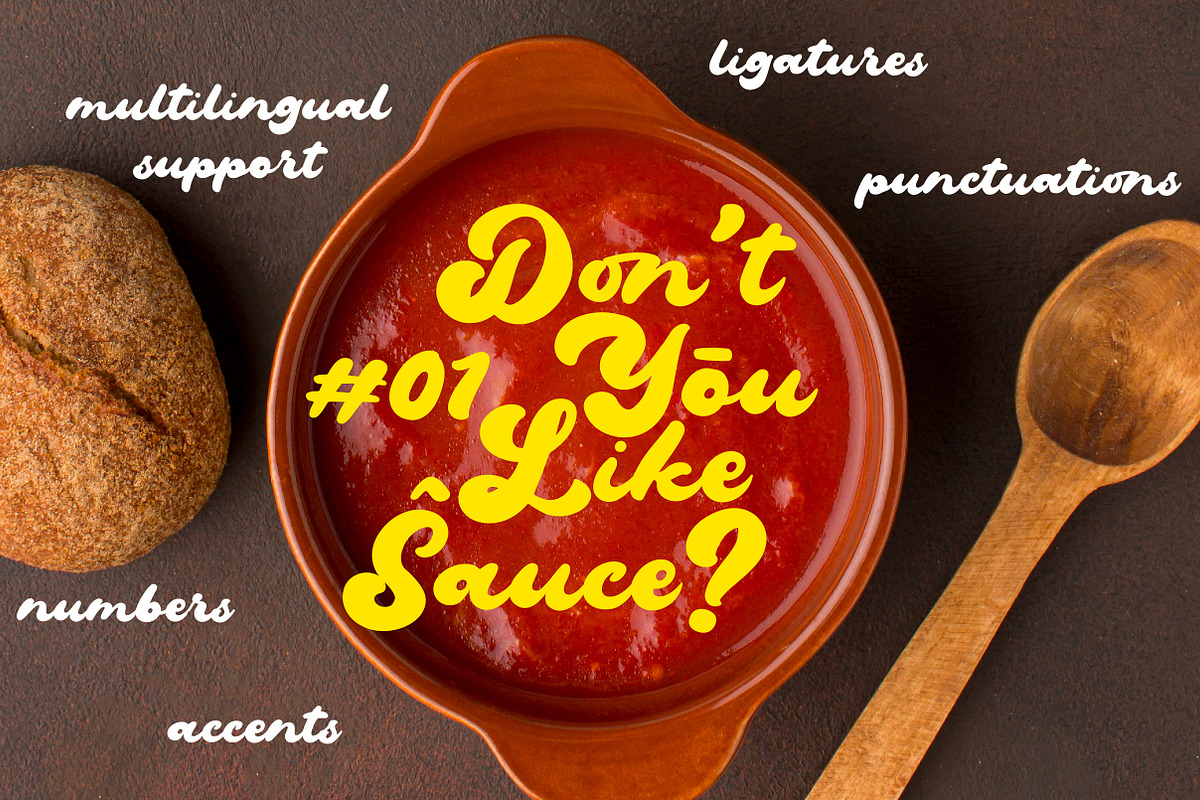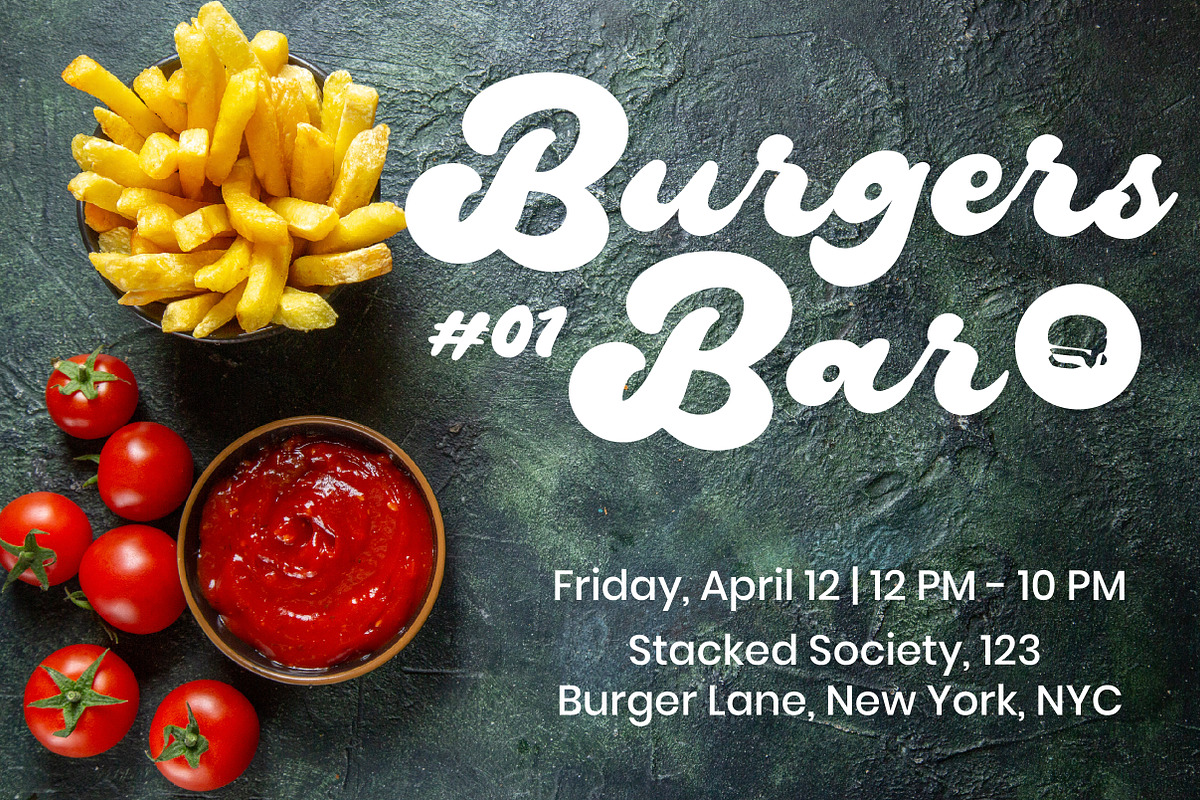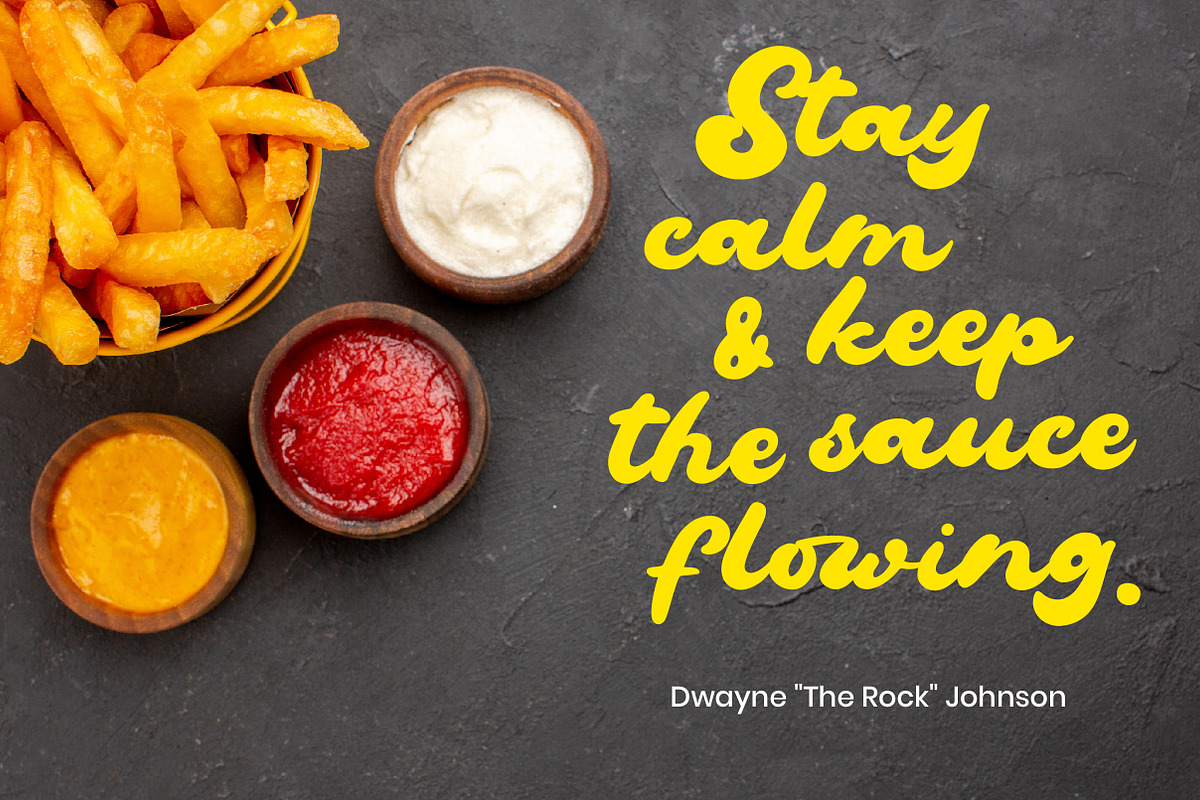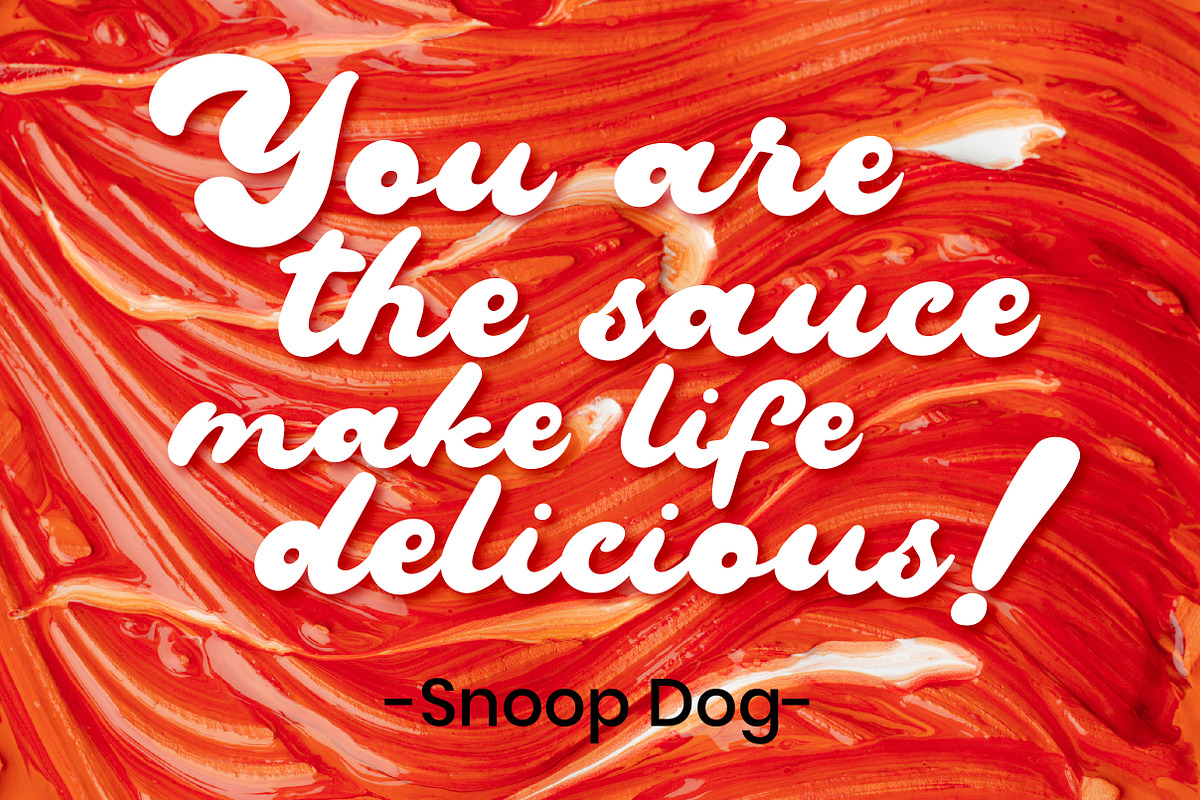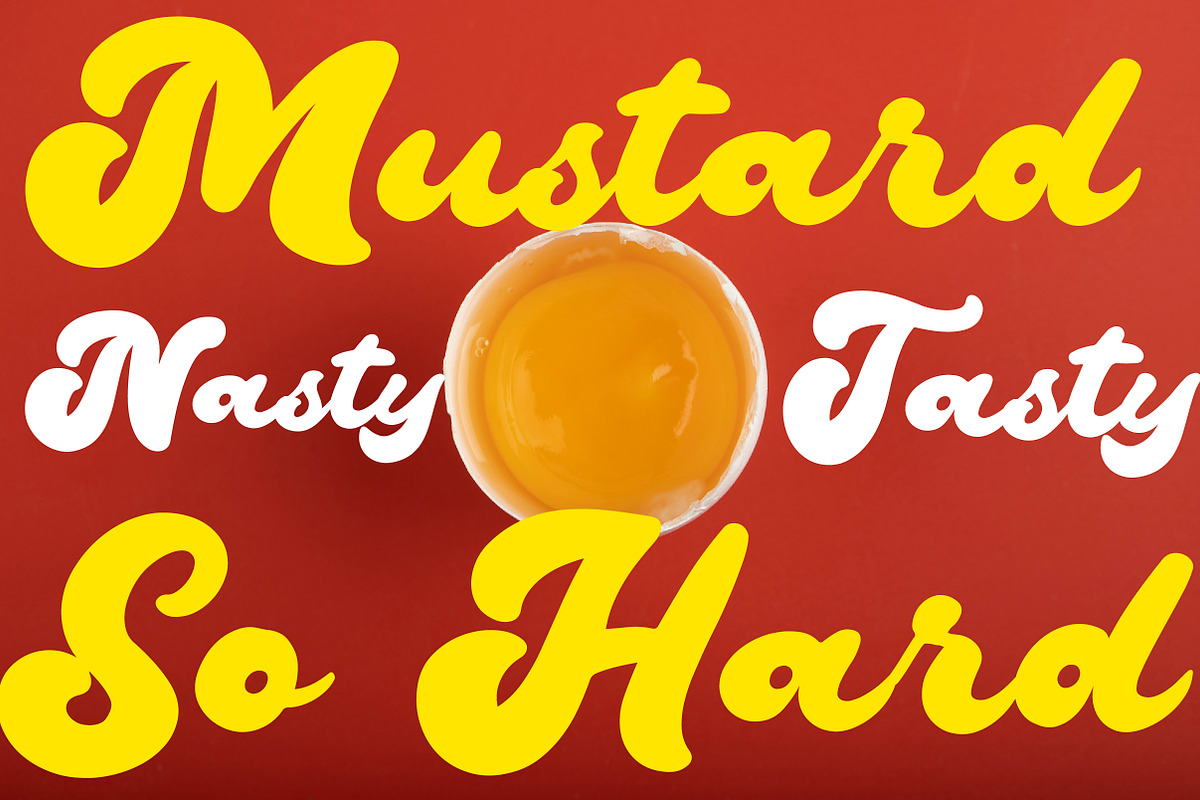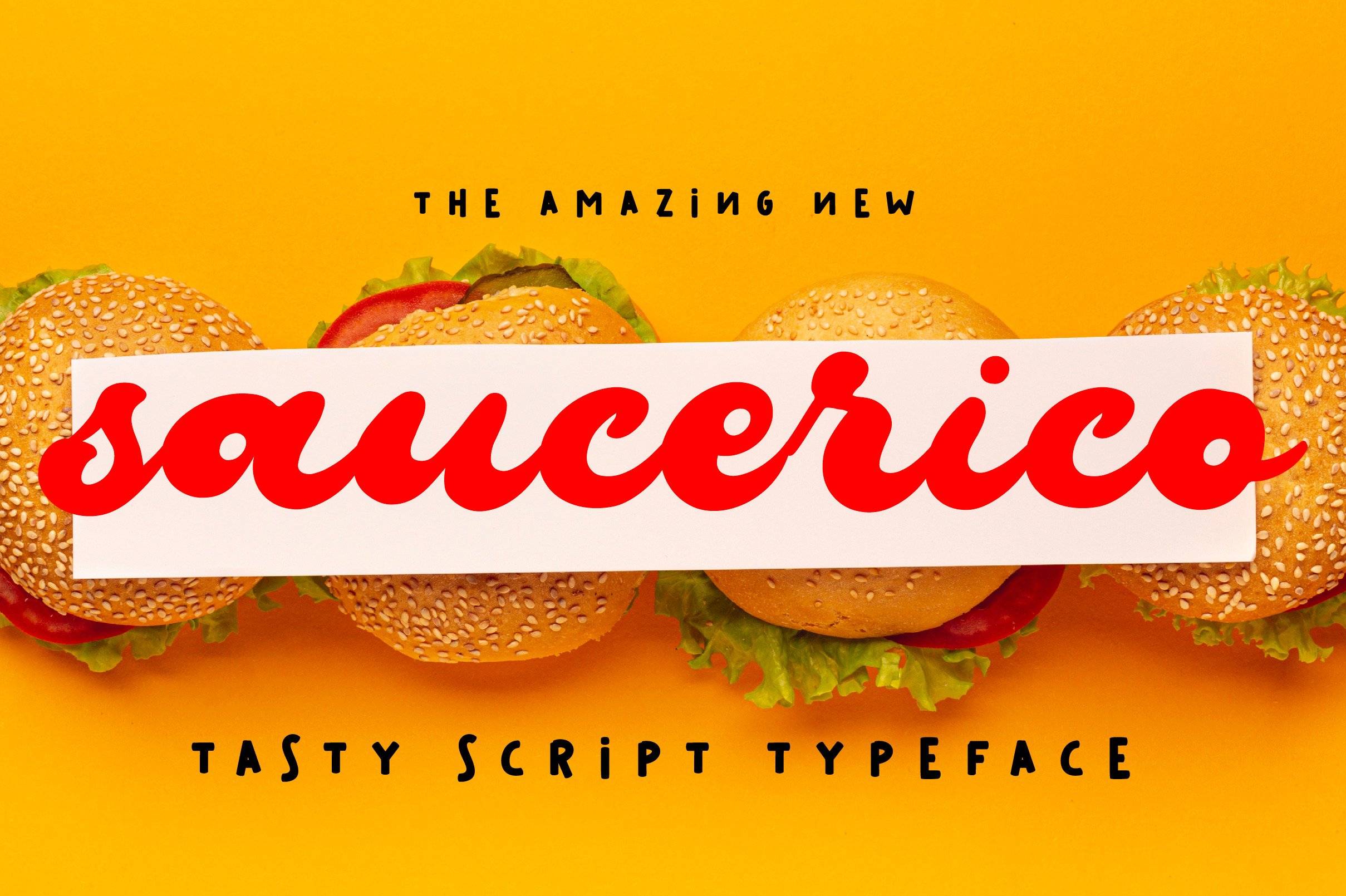
Saucerico |The Tasty Script Typeface
Saucerico - The Tasty Script Typeface
Get ready to spice up your designs with Saucerico, the bold and flavorful script font inspired by the rich, flowing texture of sauce from a bottle! Whether you're crafting mouthwatering food branding, eye-catching posters, or sizzling social media content, Saucerico is your go-to typeface for adding a burst of boldness and charm.
🍽️ Perfect For: 🔥 Food Branding & Packaging 🔥 Retro & Playful Logo Designs 🔥 Eye-Catching Posters & Menus 🔥 Social Media Graphics & Merch
🖋️ Key Features: 🌟 Bold & Juicy Style 🥄 OpenType Features 🔢 Punctuations & Numbers 🌍 Multilingual Support ✅ Versatile Use